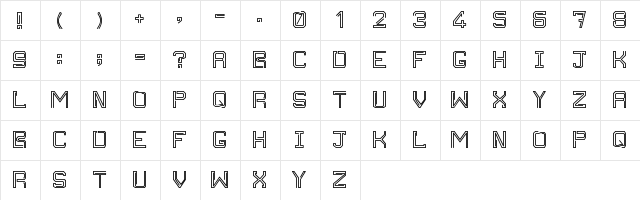
Clippersnip Office Regular
Design Context for Clippersnip Office Typeface
Clippersnip Office is a composed and adaptable typeface that performs quietly and consistently across a wide range of design contexts.